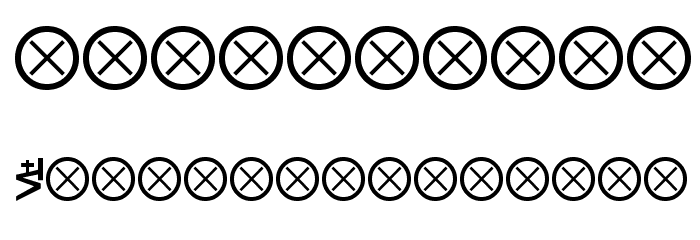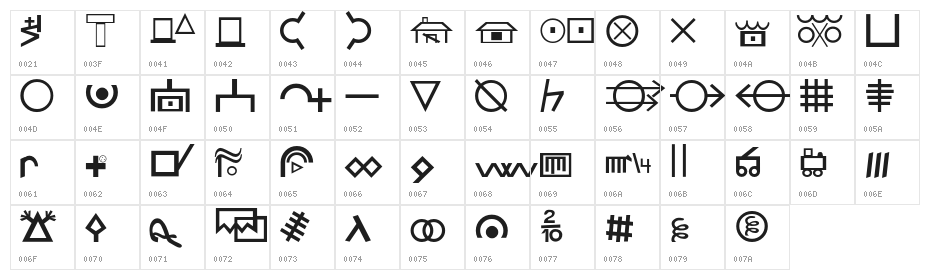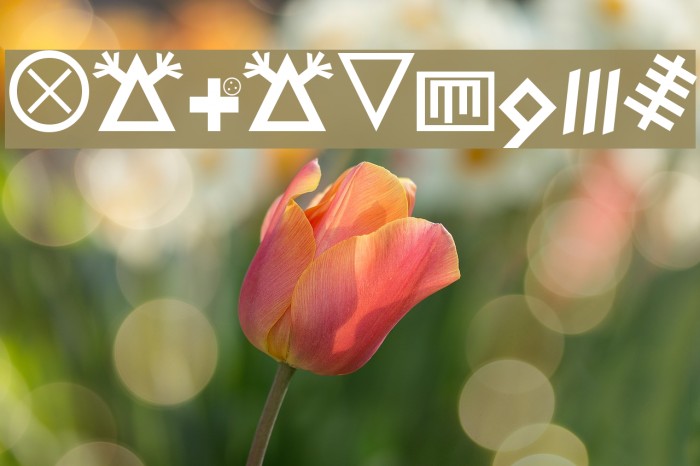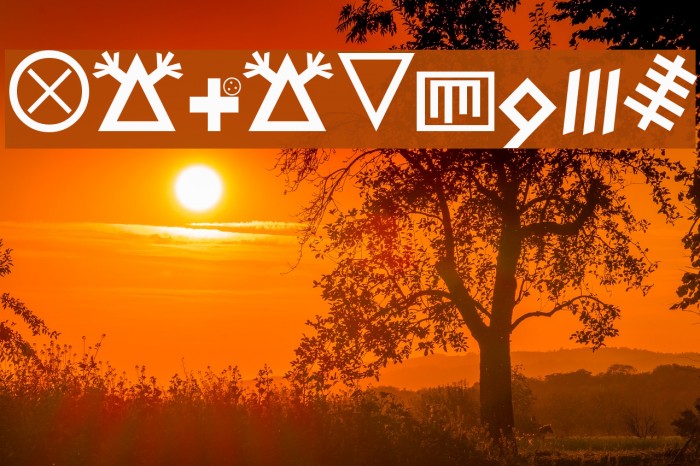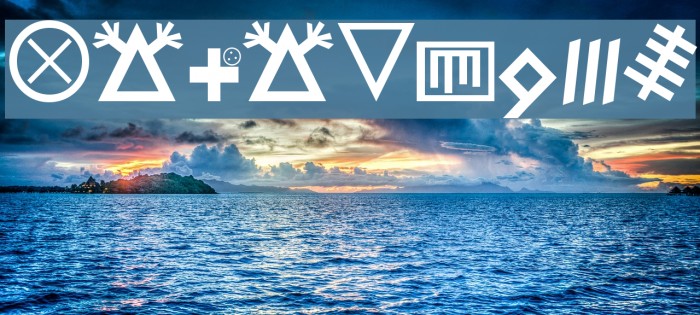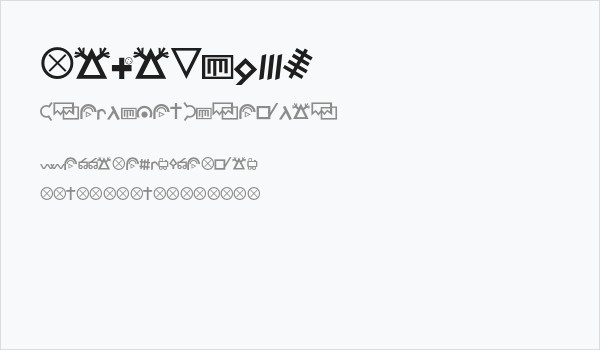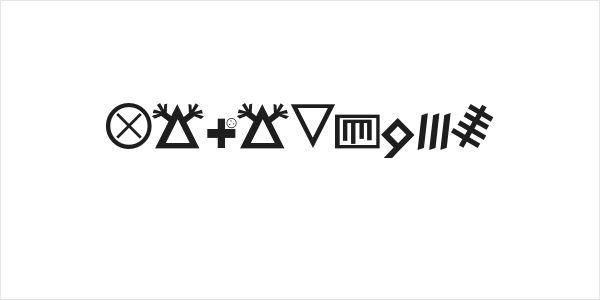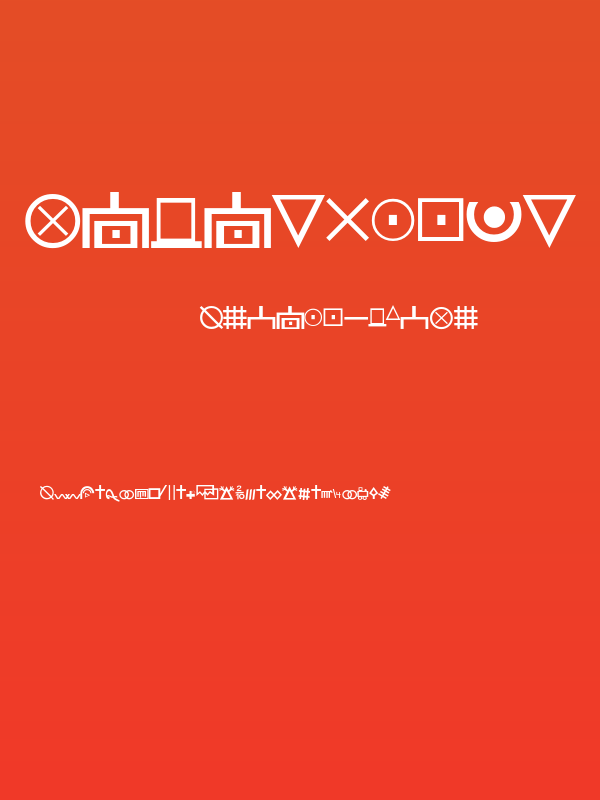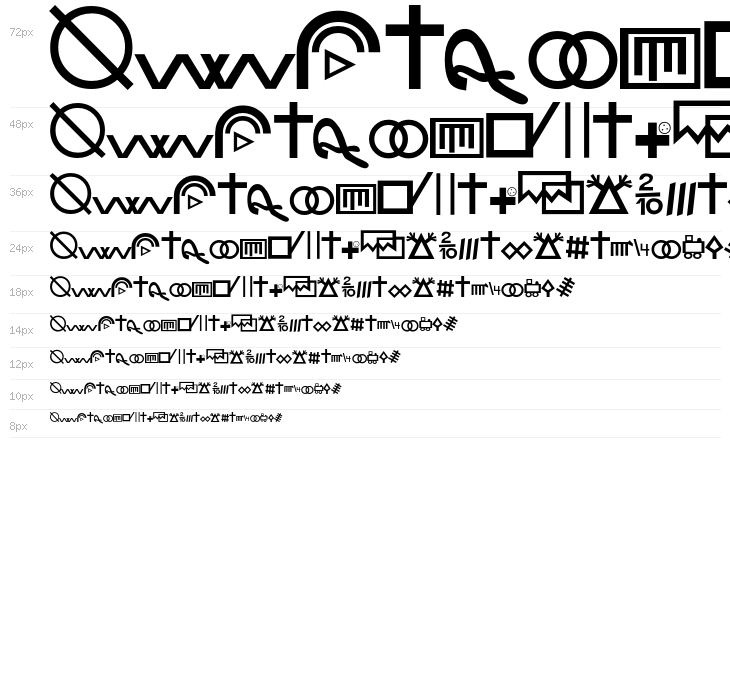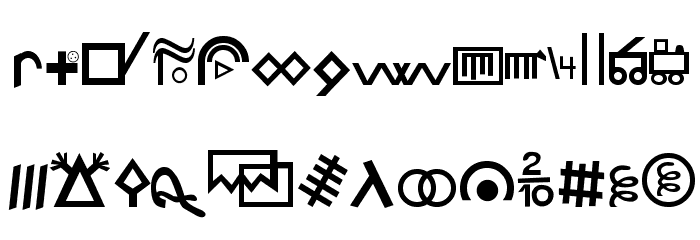
HoboSigns Font
HoboSigns Description
A pictographic, symbol-based typeface inspired by hobo signs, featuring a variety of geometric and illustrative glyphs rather than traditional alphanumeric characters. The symbols are bold, highly legible, and visually distinct, often enclosed in circles or squares, with consistent line thickness and playful, informal styling.
| Overall Style | Decorative, Pictographic, Playful |
| Use Case | Icons, Themed graphics, Signage, Posters |
| Proposed Projects | Wayfinding, educational materials, themed posters, escape room props, historical displays, graphic design projects requiring symbolic communication. |